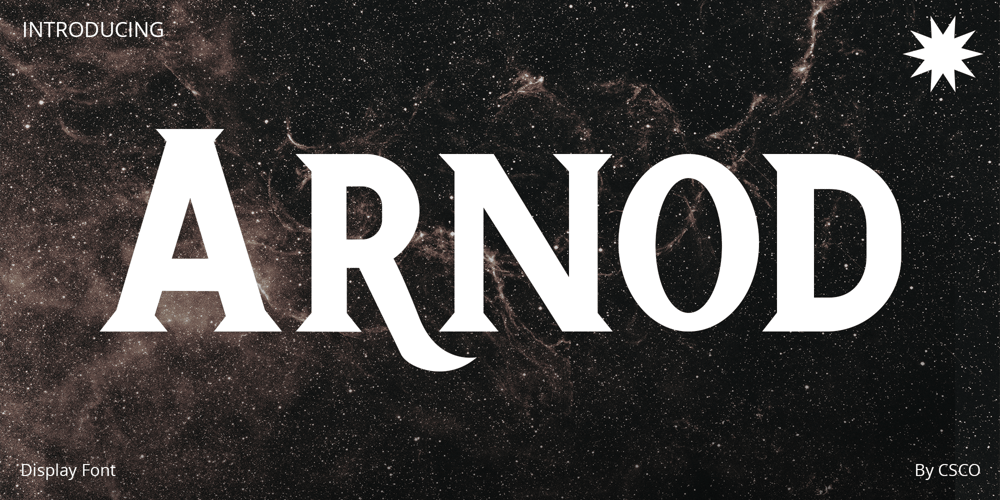
Arnod
Arnod font
Arnod Font Family was designed by Trio Nazzar Saputra, Wahyu Hadi Yuana and published by Craft Supply Co. Arnod contains 1 styles and family package options. Discover “Arnod – Serif Typeface”Robust and RefinedEmbark on a journey through the powerful aesthetics of “Arnod.” This serif typeface exudes a masculine aura, characterized by bold strokes and robust forms. Arnod doesn’t just communicate; it declares, ensuring that every design resonates with authority and strength.Industrial EleganceNavigating through the realms of industrial design, Arnod effortlessly aligns with the aesthetics of strength and precision. Here, it finds a space where its mechanical elegance and structured forms become a natural fit, enabling designs to embody an authentically industrial spirit.